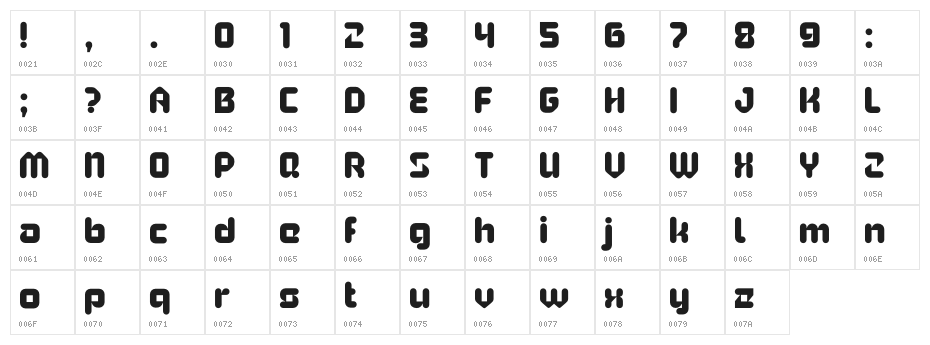
This font features a bold, rounded style with a modern and futuristic aesthetic. The characters are uniformly thick, providing a strong visual impact. The rounded edges and consistent stroke width give it a friendly and approachable feel, while the geometric shapes add a contemporary touch. The uppercase and lowercase letters maintain a consistent style, with the numerals and special characters following suit. This font is highly legible and stands out due to its unique design, making it suitable for various creative applications.
| Proposed Projects | Ideal for branding, logos, headlines, posters, and digital media where a modern and bold statement is needed. |